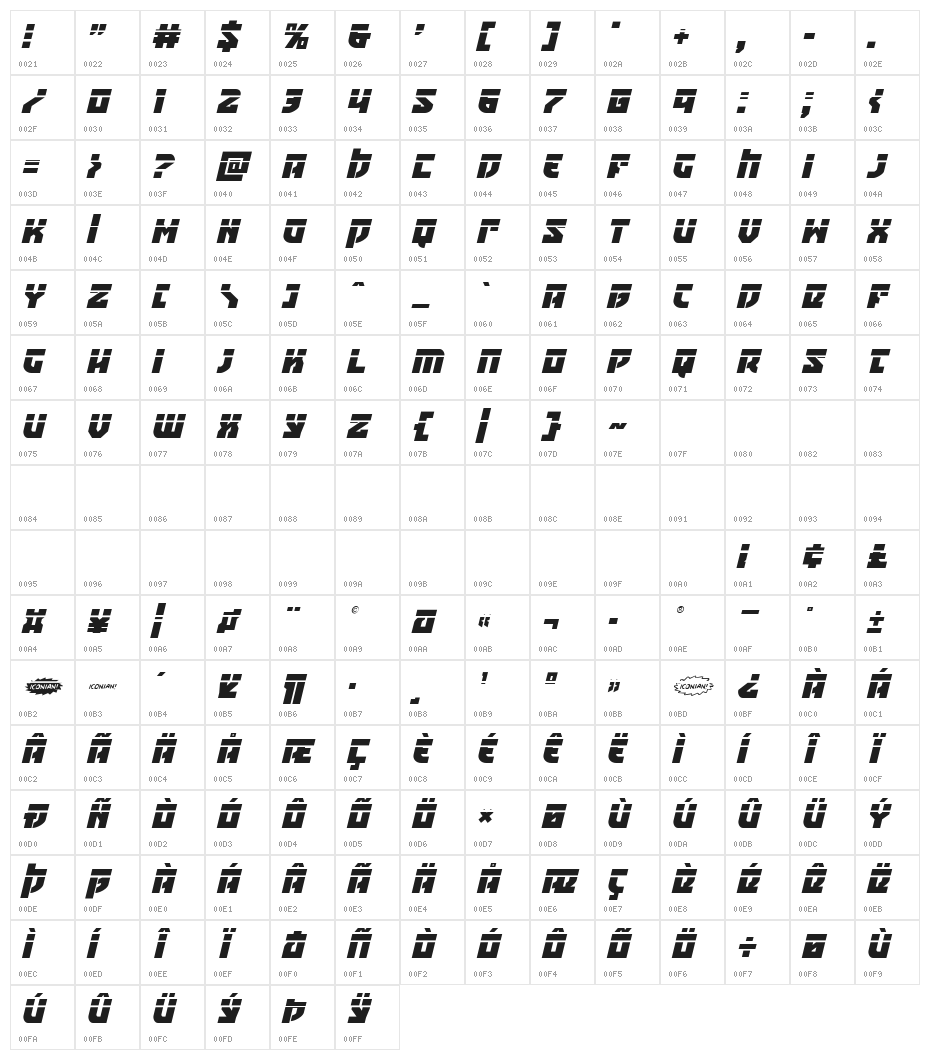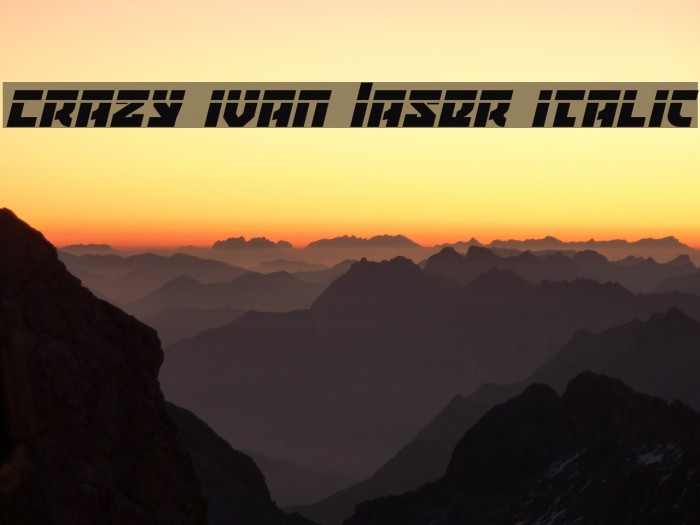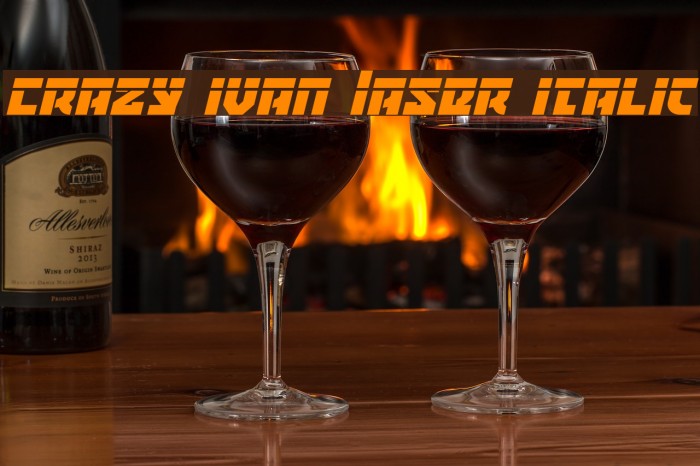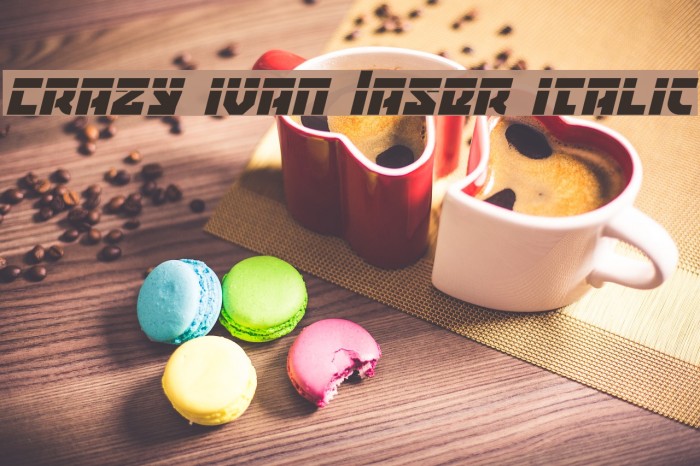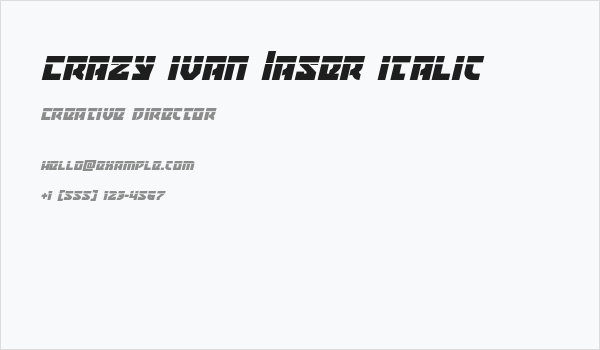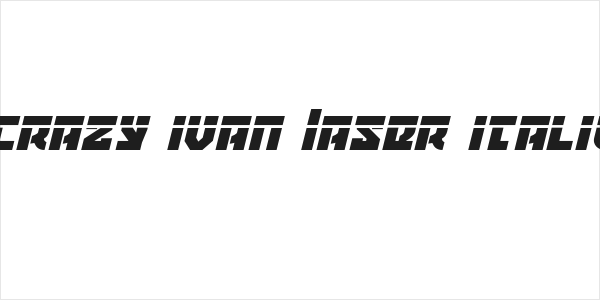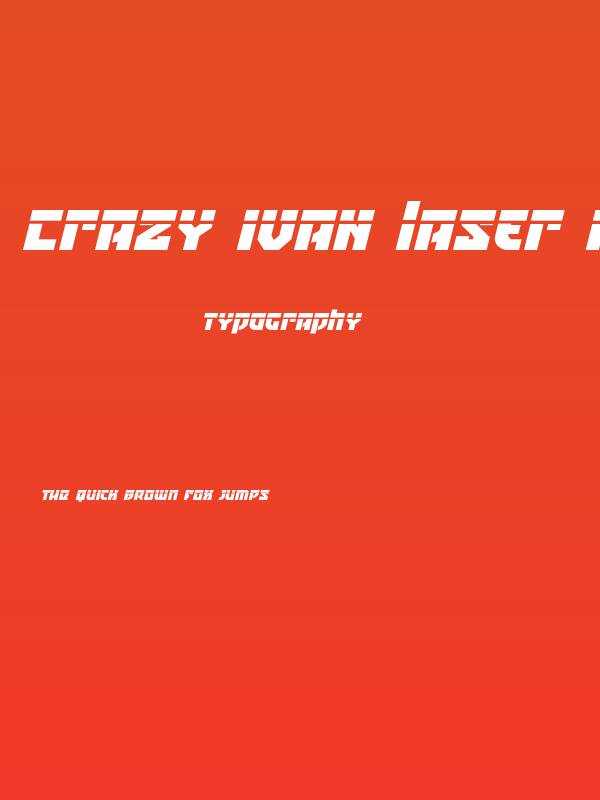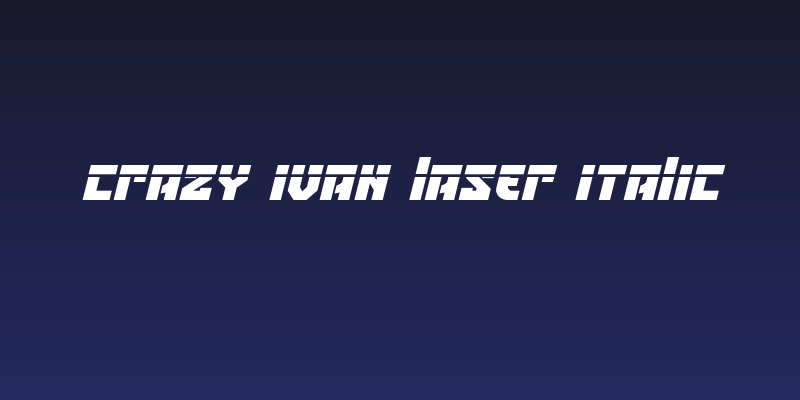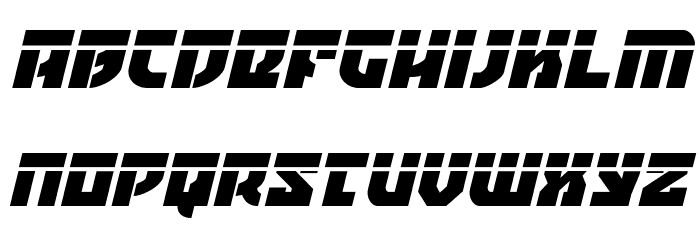
Crazy Ivan Laser Italic Font
Crazy Ivan Laser Italic Description
This font features a bold and futuristic design with sharp, angular edges and a distinct italic slant. The characters are heavily stylized, resembling a laser-cut aesthetic that conveys a sense of speed and modernity. The uppercase and lowercase letters maintain a consistent geometric form, while the numbers and special characters integrate seamlessly into the overall design. The font's unique style makes it stand out, ideal for projects that require a dynamic and edgy look.
| Proposed Projects | Ideal for sci-fi themed designs, video game titles, tech branding, and futuristic posters. |